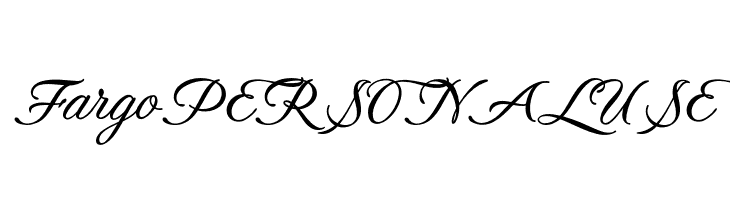
A classic, elegant handwritten font with a vintage signature style.
A modern, handwritten cursive font with elegant, flowing lines.
A cursive, handwritten-style font with elegant, flowing characters.
A bold, dynamic script font with a handwritten style.
A flowing, handwritten style with elegant curves and a natural feel.